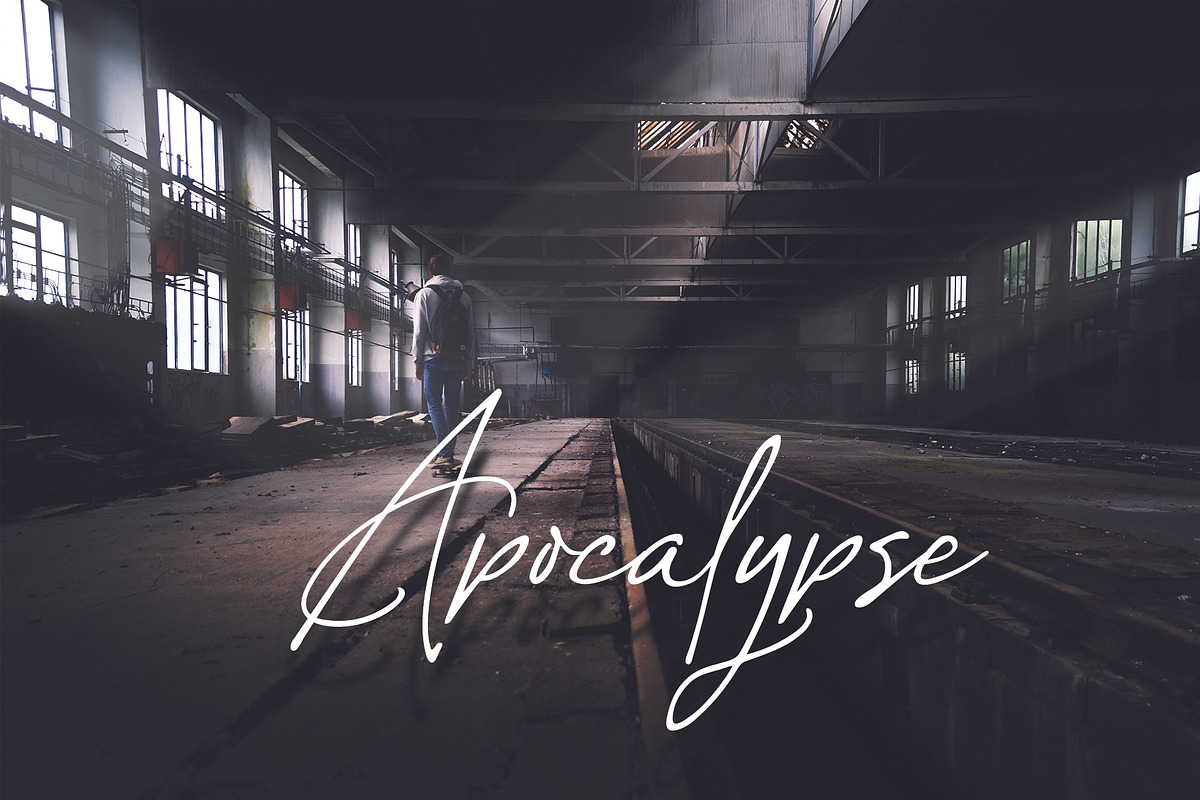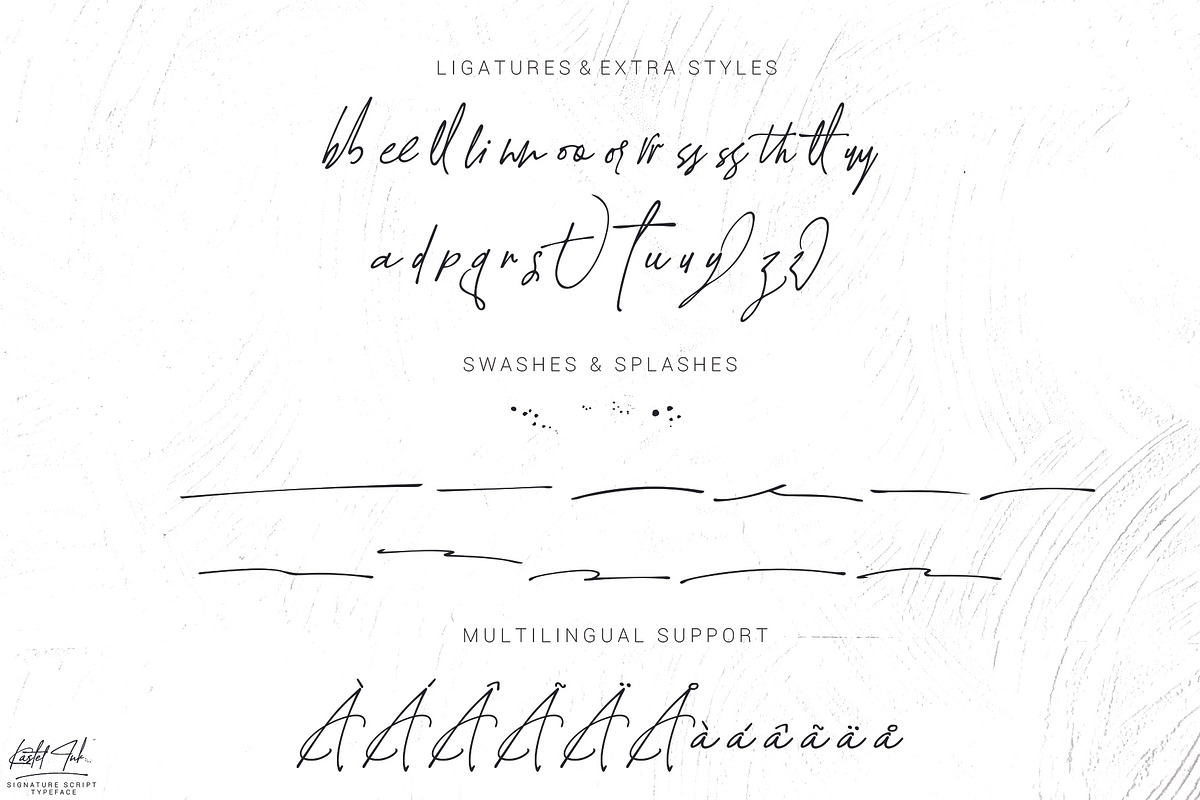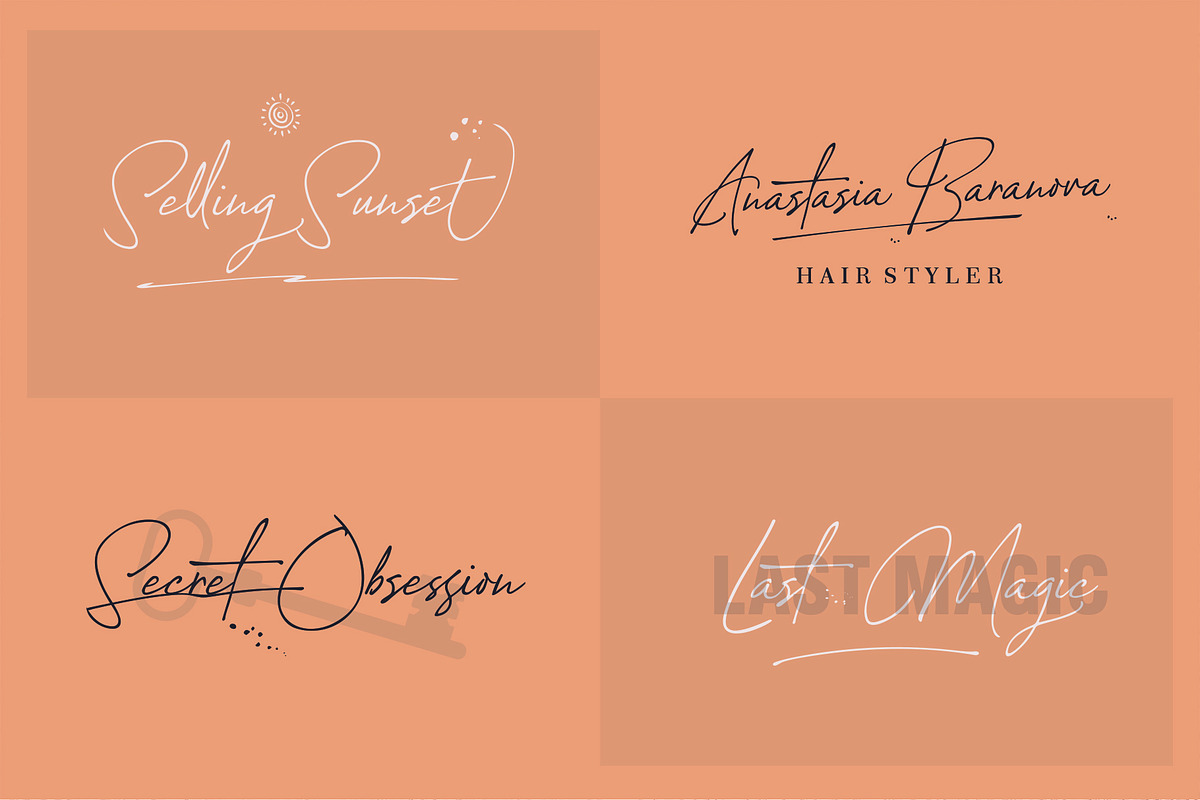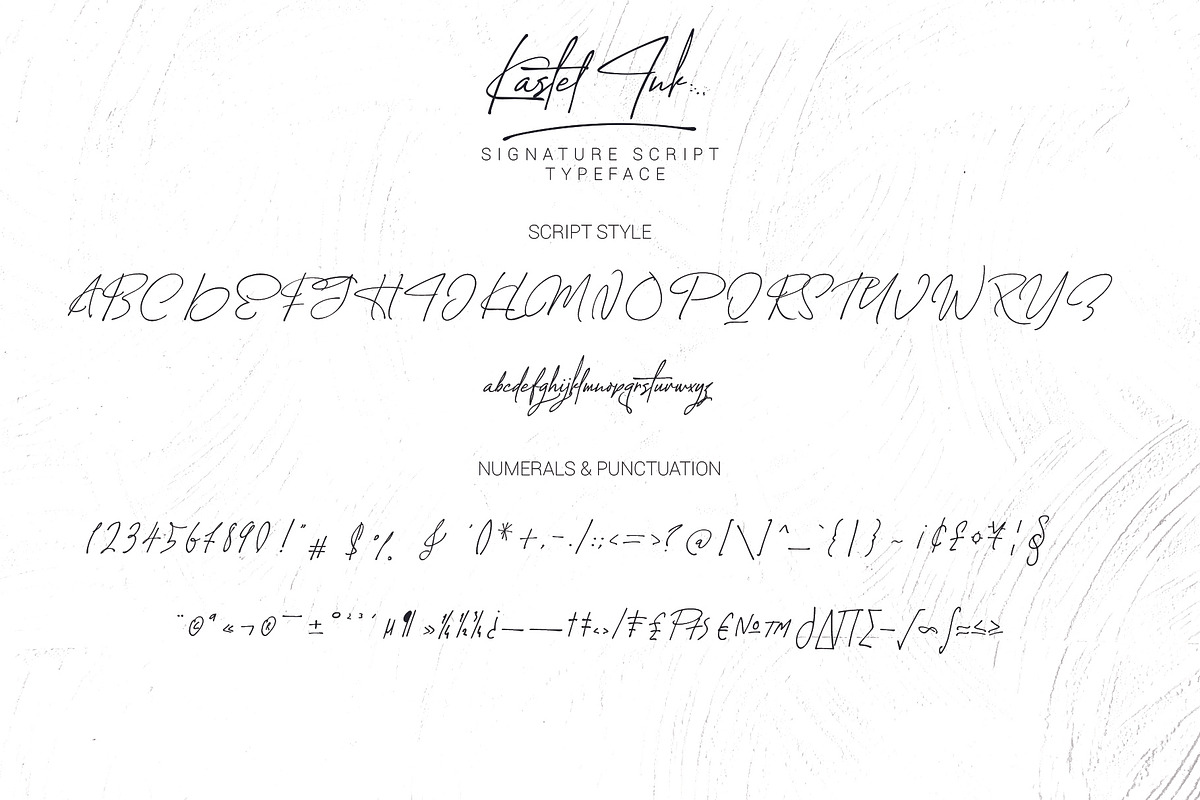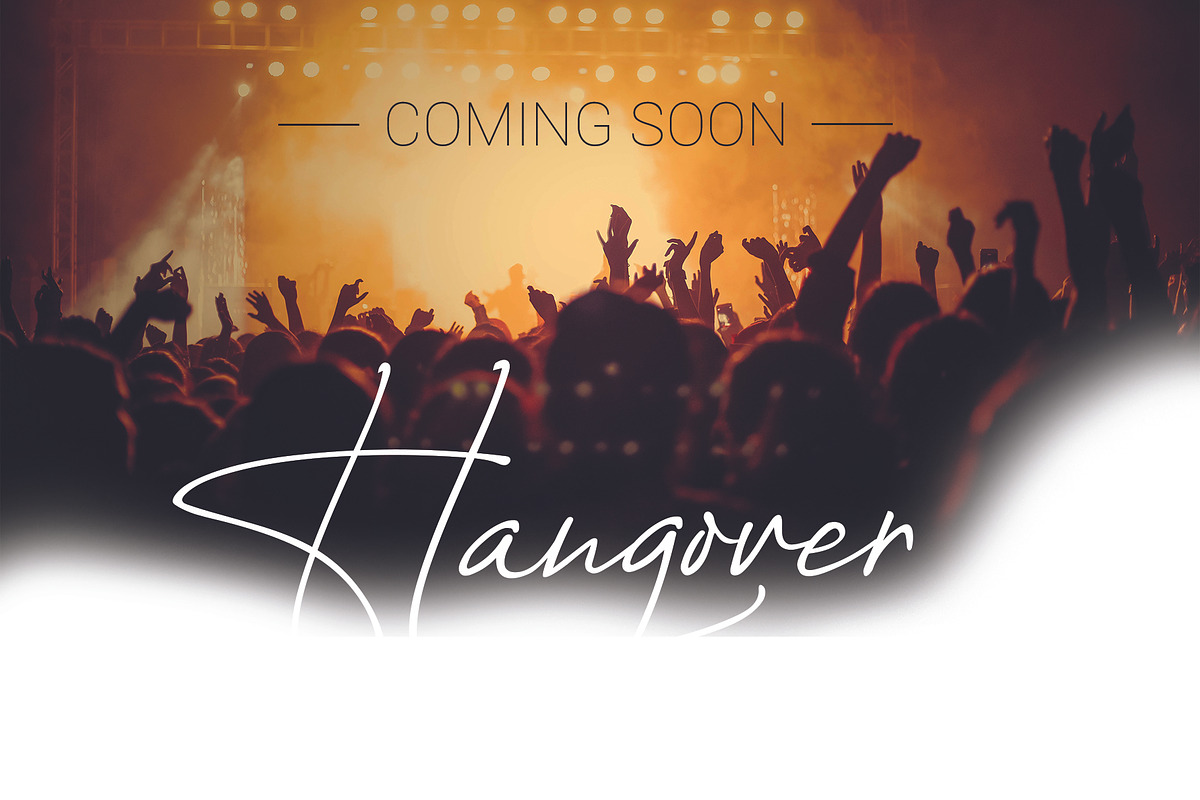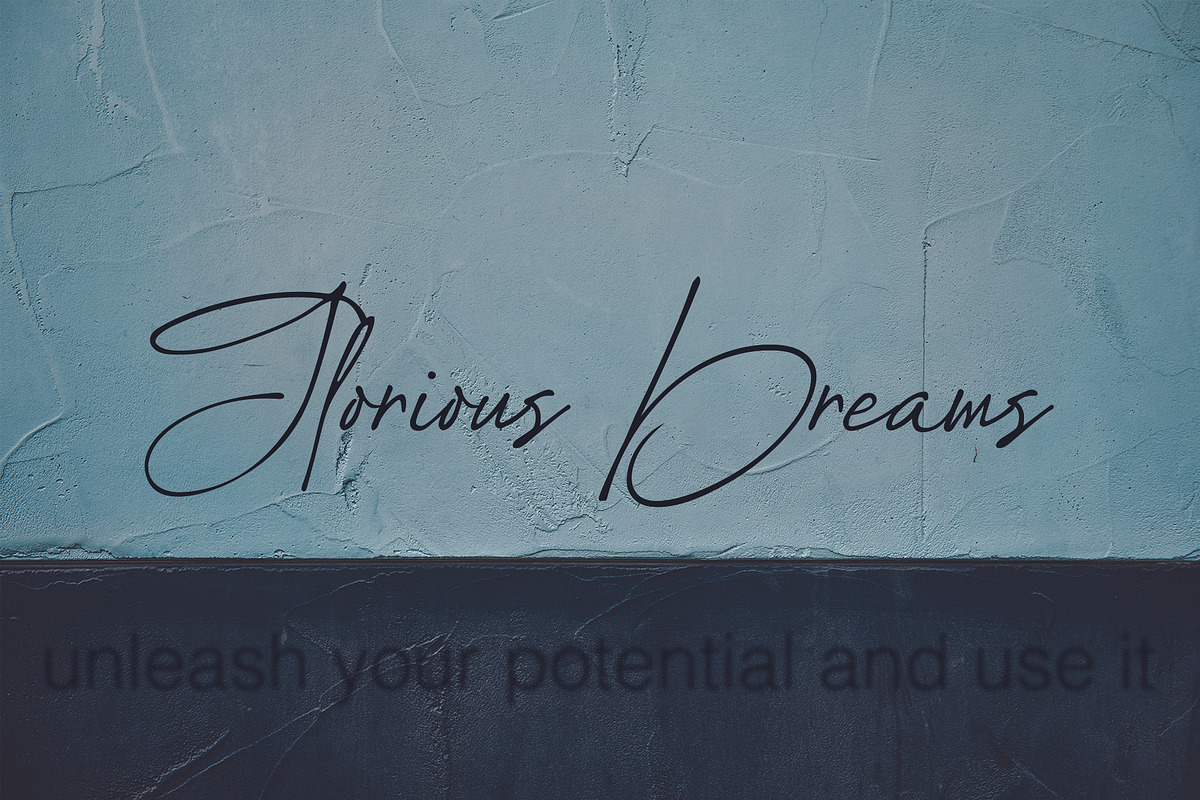
Kastel Ink Script
Let me introduce you the font Kastel Ink Script . It flows like a signature while you type it. It really shows the art of hand-work. It is very legible even though its nature looks like it has extreme lines. It is really unique in this regard. Awesome! Isn't it? :)
-Uppercase -Lowercase -Numbers and Symbols -Alternate Characters -OTF and TTF -Ligatures -Swashes -Splashes -Multiilingual